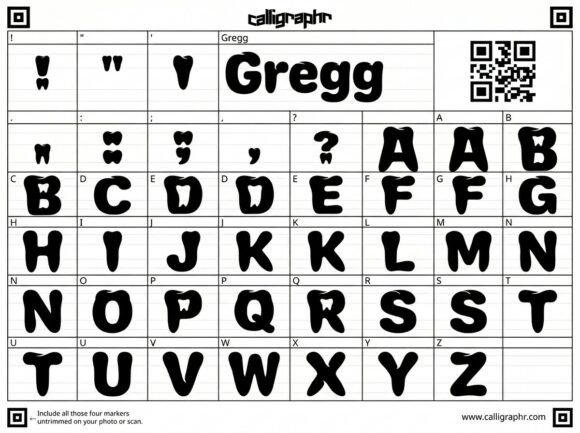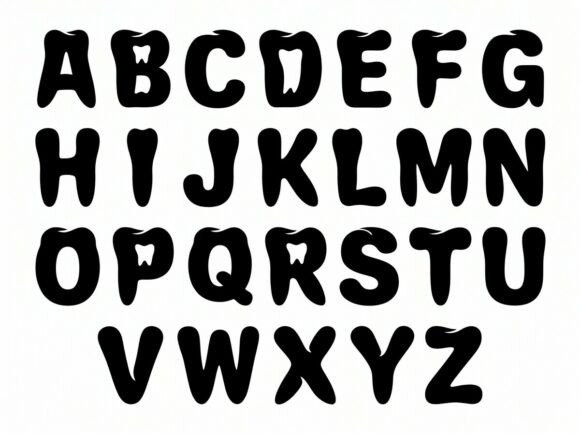
Bring a Playful and Thematic Touch to Your Creative Projects with Gregg Font
Are you looking for a unique and eye-catching display font to elevate your creative projects? Look no further than Gregg, a one-of-a-kind typeface that combines a bold, chunky design with a whimsical dental flair. This extraordinary font is sure to bring a playful and thematic touch to your visual identity, making it perfect for a wide range of applications, from pediatric dentistry branding to engaging educational materials.
A Font Like No Other: The Tooth-Integrated Silhouette of Gregg
What sets Gregg apart from other display fonts is its charming “tooth-integrated” silhouette. The negative spaces of the letters are artfully shaped like molars, creating a bold and eye-catching visual effect. This unique design element not only adds a touch of whimsy to your creative projects but also makes the font instantly memorable. Whether you’re designing a logo for a dental clinic or creating an infographic about oral health, Gregg is sure to make your message stand out.
Perfect for Pediatric Dentistry Branding and Health-Focused Infographics
Gregg’s bold, chunky design and playful dental theme make it an ideal choice for pediatric dentistry branding. The font’s heavy visual weight and soft, organic rhythm create a sense of professional, human-centric warmth that is sure to appeal to parents and children alike. Additionally, Gregg’s unique design makes it perfect for playful health-focused infographics, allowing you to present complex information in a fun and engaging way.
Beyond Dentistry: Using Gregg in a Variety of Creative Projects
While Gregg’s dental theme makes it a natural fit for pediatric dentistry branding and related applications, its versatility and playfulness make it suitable for a wide range of creative projects. Consider using Gregg in:
- Dental clinic signage: Make a bold statement with Gregg’s eye-catching design.
- Educational materials: Bring a touch of fun and whimsy to textbooks, workbooks, and other learning materials.
- Playful packaging: Add a unique and memorable touch to product packaging.
- Digital media: Use Gregg to create engaging social media graphics, blog posts, and website headers.
The Benefits of Using Gregg in Your Creative Projects
So why choose Gregg for your creative projects? Here are just a few benefits of using this unique display font:
- Memorability: Gregg’s bold, chunky design and tooth-integrated silhouette make it instantly memorable.
- Approachability: The font’s soft, organic rhythm creates a sense of professional, human-centric warmth.
- Versatility: Gregg is suitable for a wide range of creative projects, from pediatric dentistry branding to playful packaging.
- Creativity: Gregg’s unique design is sure to inspire creativity and bring a fresh perspective to your projects.
Getting Started with Gregg: Tips for Designers and Crafters
Ready to bring a playful and thematic touch to your creative projects with Gregg? Here are a few tips to get you started:
- Experiment with different colors: Gregg’s bold design looks great in a variety of colors, so don’t be afraid to experiment and find the perfect hue for your project.
- Play with texture and patterns: Add an extra layer of depth and interest to your design with texture and patterns.
- Use Gregg in combination with other fonts: Gregg’s bold design makes it perfect for use in combination with other fonts, creating a visually appealing contrast.
With its unique tooth-integrated silhouette, bold design, and playful theme, Gregg is the perfect font for designers and crafters looking to bring a touch of whimsy and creativity to their projects. Whether you’re working on a pediatric dentistry branding project or simply looking for a fresh perspective, Gregg is sure to deliver a sense of professional, human-centric warmth and creative joy to your visual identity.